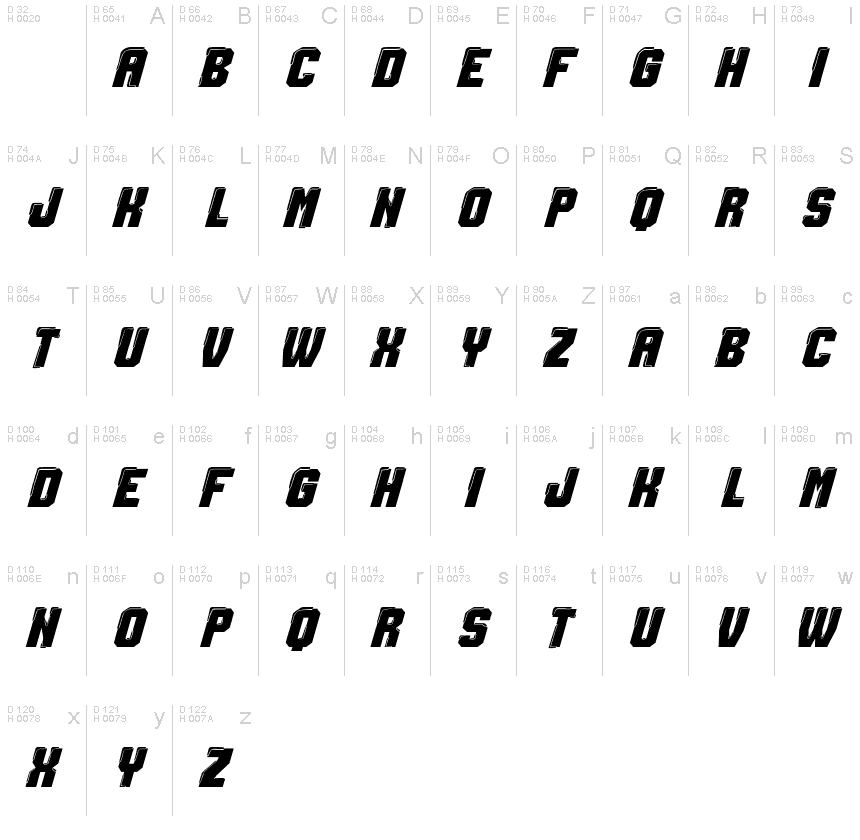
Fridge Regular
Fridge, designed by Vladimir Nikolic, is an extra-bold, condensed display font with a decorative style. This unique typeface is suitable for a wide range of creative projects.
Its bold and condensed structure makes it perfect for eye-catching headlines and attention-grabbing logos. With its decorative elements, Fridge adds a touch of personality to any design. Whether you're working on packaging design, poster art, or branding projects, this font will bring your creations to life with its distinct and memorable character.